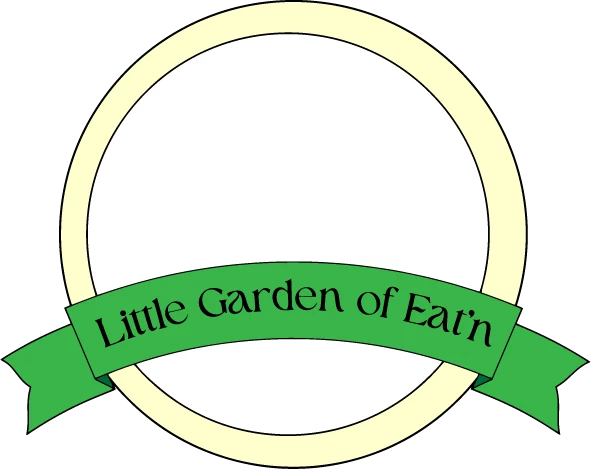
Need helping figuring out which font this is
I've been going through the past, similar articles about trying to figure out which font has been used without any luck.
I've opened the file in Notepad but it doesn't give any "font" "text" or "type" information.
I've used the Match Font feature and it's giving me matches that look NOTHING like the font I'm trying to match.
I've retyped the same phrase and arrowed down through every font available in Illustrator and Photoshop trying to find which one matched without any luck.
The original file was created in 2022 using Photoshop and Illustrator. I'm trying to add another line of text now with the same font, and I can't figure this out for the life of me. Can anyone help? Do you recognize this font? The lower case "a" and the uppercase "e" both have difinitive shapes to them that I can't find in a similar font. This is a .jpg of the image I'm trying to work with, but I do have the .ai file on the computer.
It is recommended to keep backups of the artwork, especially when you are about to destroy, sorry, change it irreversibly, which includes outlining Type.
You have no live Type hidden somewhere?
I have also tried the Retype feature, which seems very similar, if not the same, as the Match Font feature. Still, no luck.
Could you try using the Visual Search Tool (https://adobe.ly/41Owm71) to identify the font and check if it helps?